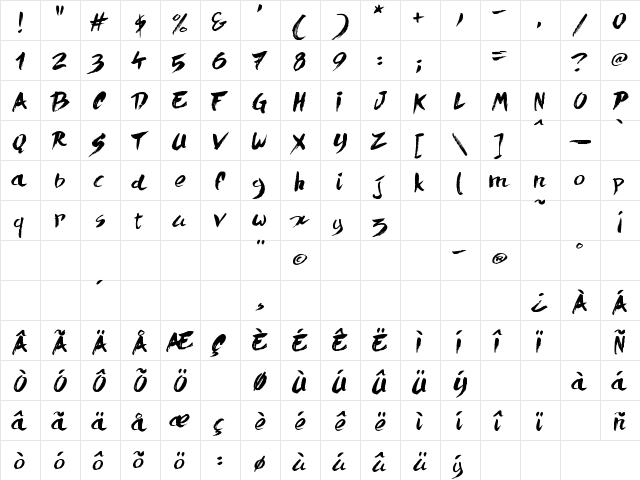
Quick Menu Boards Regular
Design Context for Quick Menu Boards Typeface
Quick Menu Boards is a composed and adaptable typeface that performs quietly and consistently across a wide range of design contexts.